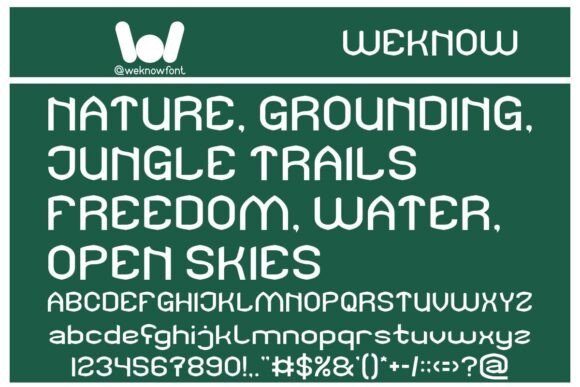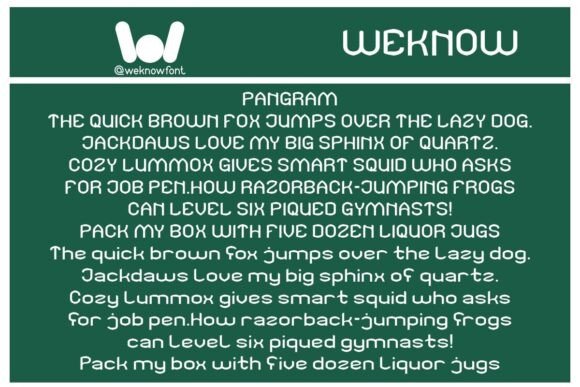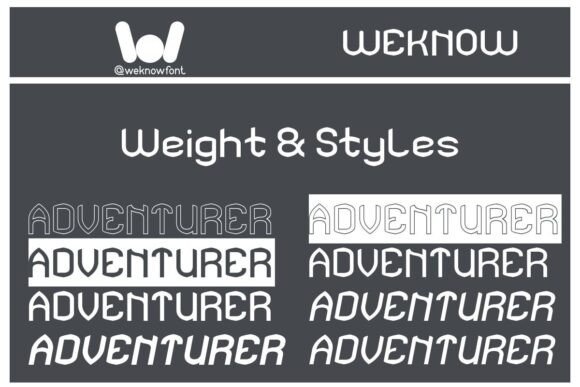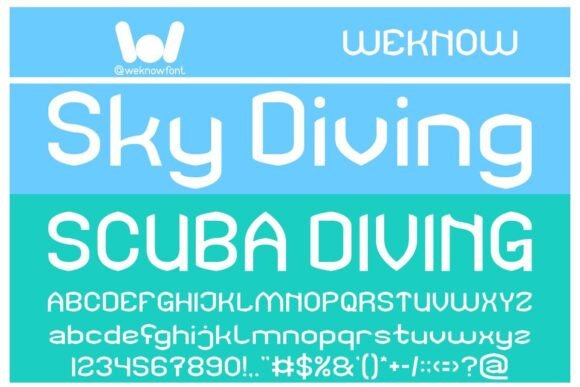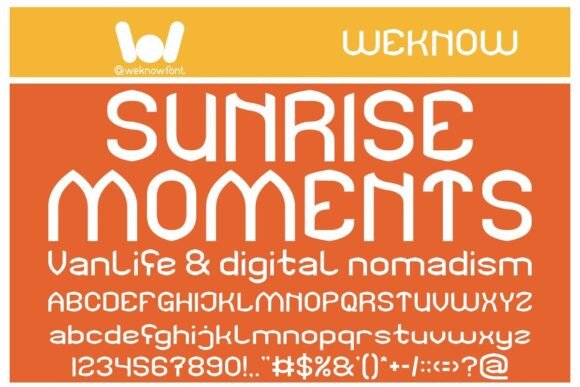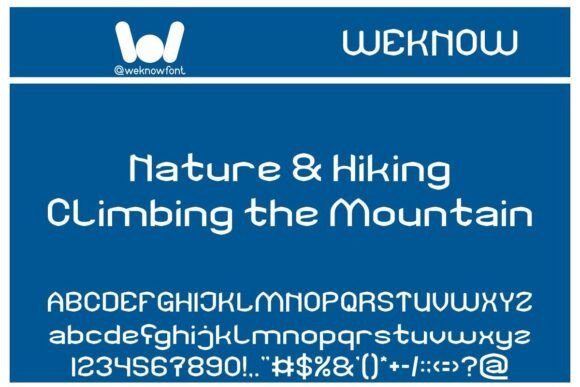
The Adventurer Font: A Game-Changer for Creative Projects
I’ll never forget the struggle I faced while working on a branding project for a trendy new cafe. My client wanted a font that was bold, playful, and fresh, but also familiar and approachable. After hours of scouring through font libraries, I stumbled upon the Adventurer font. It was love at first sight! ✨ The unique charm and versatility of this modern display font instantly won me over, and I knew I had found the perfect fit for my client’s project.
An Honest Review of Adventurer Font
- ✅ Versatility: Adventurer shines in a variety of contexts, from corporate identities to media and entertainment.
- ✅ Unique charm: This font brings a touch of whimsy and playfulness to any design project.
- ✅ Fresh yet familiar: The bold and playful design makes it an excellent choice for logos, logotypes, and headlines.
- ✅ Easy to read: Despite its bold design, Adventurer remains clear and legible, even at smaller font sizes.
While Adventurer is an excellent font, there are a few minor quirks to be aware of: 🤔
- ⚠️ Limited use in body text: Due to its bold design, Adventurer may not be the best choice for lengthy body text.
- ⚠️ Glyph compatibility: Some glyphs or special characters may not work seamlessly with certain software or platforms.
The Designer Inspiration Behind Adventurer
The Adventurer font was designed with the goal of creating a bold, yet playful and approachable typeface. Inspired by the world of travel and exploration, the designer aimed to craft a font that would evoke a sense of adventure and curiosity. The result is a versatile font that can be used in a wide range of creative projects.
Q: What type of projects is Adventurer best suited for?
A: Adventurer is an excellent choice for branding, logos, logotypes, headlines, and titles. It’s perfect for creative projects that require a bold and playful touch.
Q: Can I use Adventurer for body text?
A: While Adventurer is a beautiful font, it’s not ideal for lengthy body text due to its bold design. However, it can be used for short paragraphs or captions.